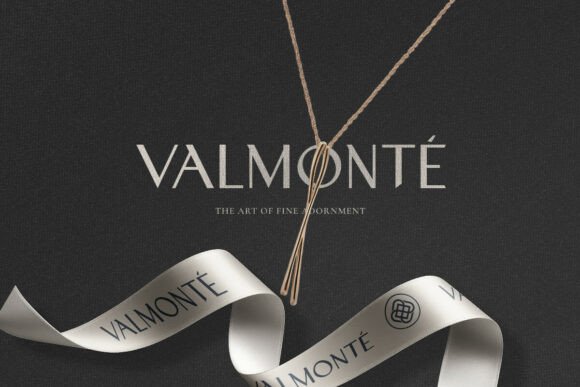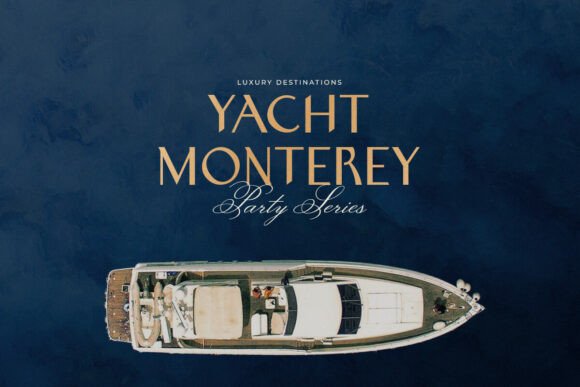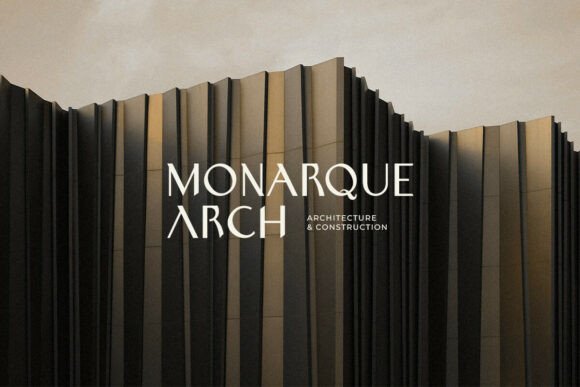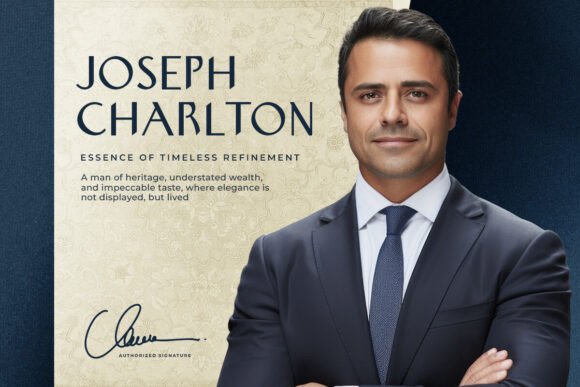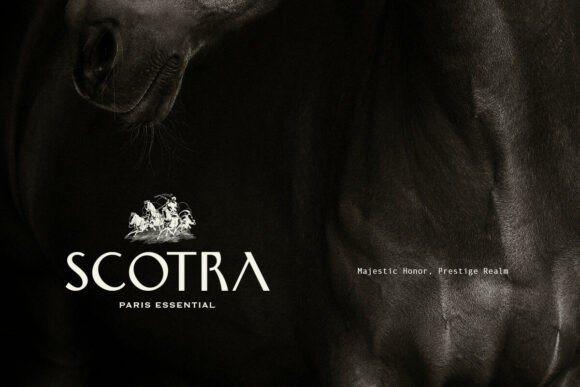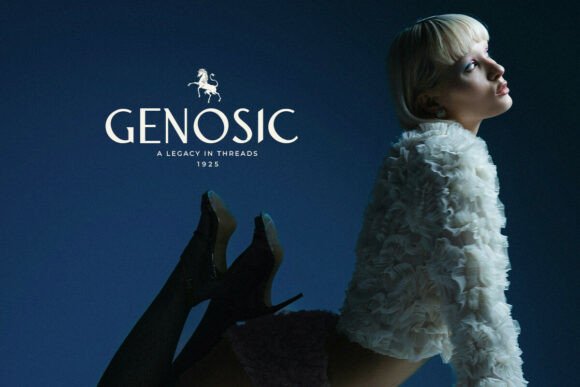
Introduction to Noveau Font
As a designer, there’s nothing quite like the thrill of bringing a creative project to life. The moment you land on the perfect typeface, the whole design seems to come together in a beautiful harmony. For many, that moment is elusive, but with the Noveau Font, it’s within reach. This stunning uppercase typeface is designed to evoke prestige, iconic characters, and timeless elegance, making it the perfect choice for premium logos, fashion branding, and high-end editorial design.
With its refined details and high-quality design, the Noveau Font is a valuable resource for designers looking to elevate their work. Whether you’re working on a free download or a high-end commercial project, this typeface is sure to make a lasting impression. Its transparent background and versatile style make it a versatile design resource that can be used in a wide range of creative contexts.
From fashion brands to luxury goods, the Noveau Font is the perfect tool for designers who want to create high-end designs that stand out from the crowd. With its timeless elegance and sophisticated style, this typeface is sure to become a go-to resource for designers who demand the best.
Key Features of Noveau Font
- Unique, high-quality font with a modern aesthetic, perfect for creative projects and design resources.
- High-resolution design, suitable for print and digital applications, including business cards, posters, and websites.
- Designed to be highly legible, with clear and crisp typography that is easy to read in various sizes and resolutions.
- Perfect for use in creative projects, such as branding, advertising, and editorial design, where a unique and stylish font is essential.
Honest Review: Noveau Font
I recently had the chance to work with the Noveau Font, and I must say it’s a great addition to any designer’s toolkit. One of the things that stood out to me was the high quality of the font, which makes it perfect for any creative project.
- ✨ Unique Style: The Noveau Font has a distinctive style that sets it apart from other fonts. It’s perfect for designers looking to add a touch of elegance to their work.
- ⚠️ Limited Character Set: The Noveau Font has a limited character set, which may make it difficult to use for certain projects.
- ⚠️ Not Suitable for Large Text: Due to its high quality, the Noveau Font may not be the best choice for large text or headlines.
Overall, I’m impressed with the Noveau Font and would definitely recommend it as a design resource. With a little creativity, it’s easy to work around its limitations and get the most out of this high-quality font.
Noveau Font
Noveau Font is a high-quality design resource that offers a free download for creative projects. This font features a unique style and is perfect for adding a touch of elegance to your designs. One of its standout features is its transparent background, making it easy to use in various design applications.
Using Noveau Font in Design Applications
Tips for Getting the Most Out of Noveau Font
To get the most out of Noveau Font, use it in combination with other design elements to create a cohesive look. Experiment with different font sizes, colors, and styles to add depth and interest to your designs.
Noveau Font is perfect for various creative projects, including wedding invitations, business cards, and social media graphics. Its unique style and transparent background make it easy to use in a variety of design applications.